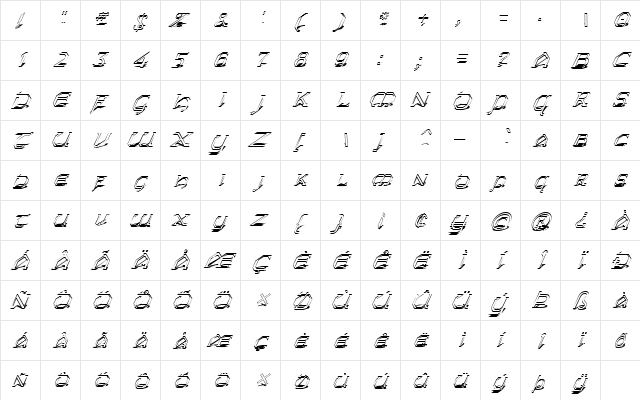
FZ JAZZY 31 SHADOW ITALIC Normal
Design Context for FZ JAZZY 31 SHADOW ITALIC Typeface
FZ JAZZY 31 SHADOW ITALIC brings ornamental detail and strong personality to headlines and identities, where visual impact matters more than quiet functionality. The slanted form adds forward momentum and visual energy.
Font Pairing: Pair with a clean neutral sans-serif for body copy to let FZ JAZZY 31 SHADOW ITALIC's character lead without overwhelming the composition.
Pro Tip: Use FZ JAZZY 31 SHADOW ITALIC exclusively at display sizes — it was designed to be seen, not read at length. Let a neutral companion handle body copy.